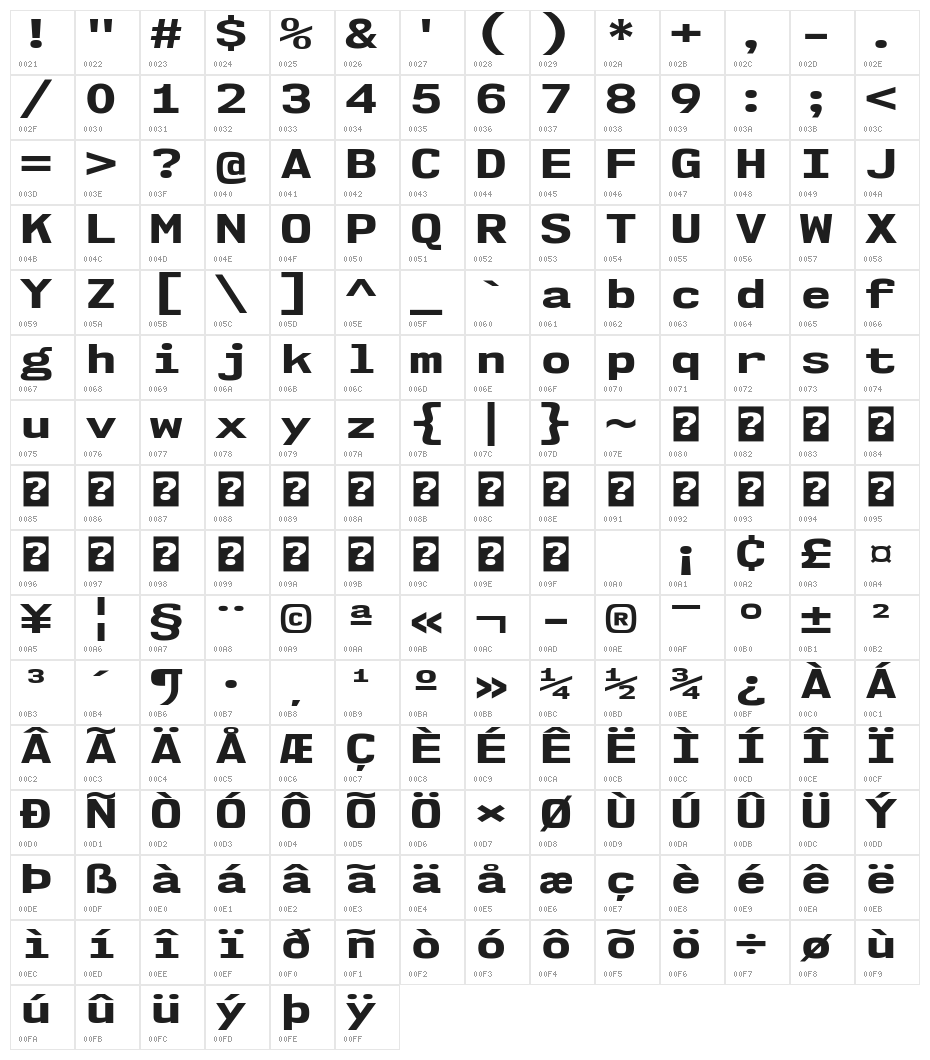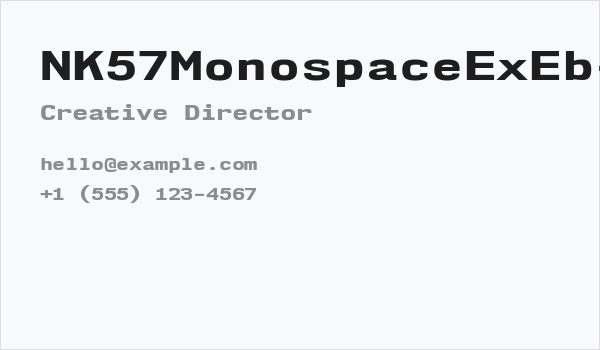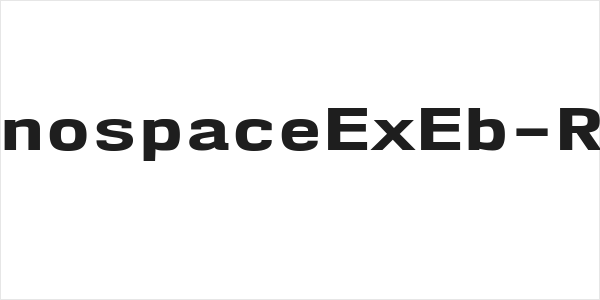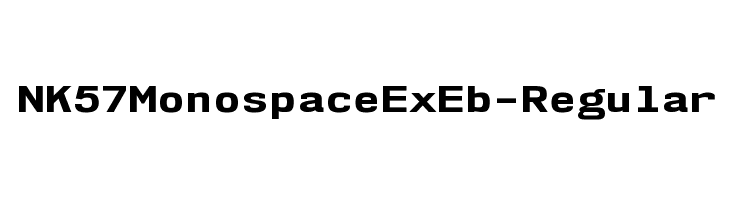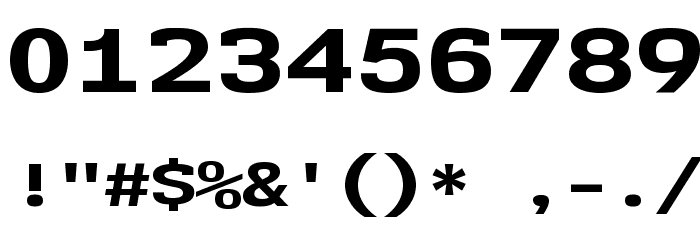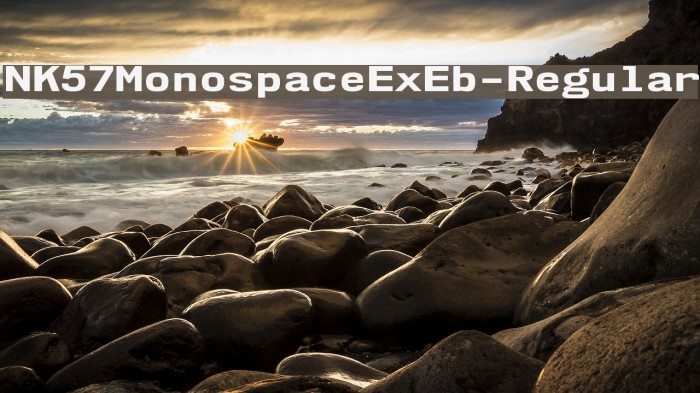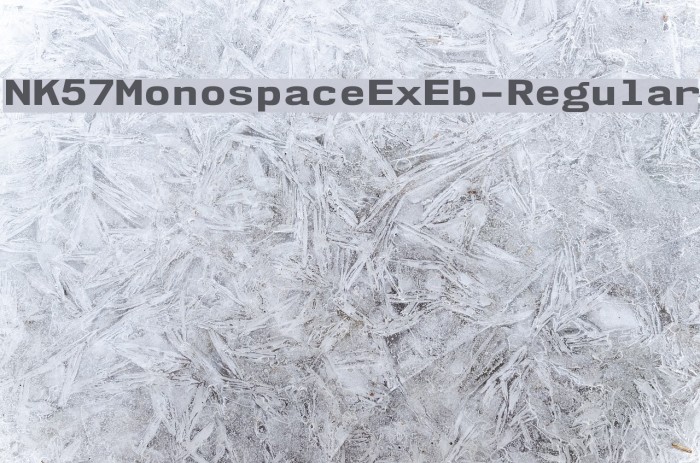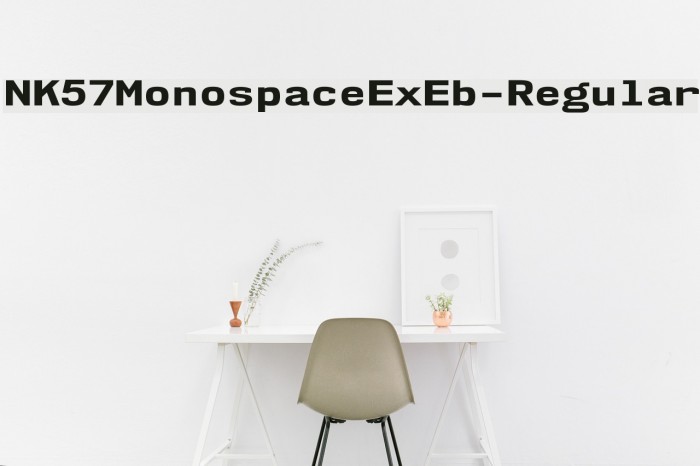
NK57MonospaceExEb-Regular Font
NK57MonospaceExEb-Regular Description
This typeface is a monospaced font characterized by its uniform spacing and consistent width across all characters. It features a bold and structured appearance, with clean lines and a modern aesthetic. The uppercase and lowercase letters maintain a geometric form, providing a sense of balance and stability. The numerals are clear and easily distinguishable, making it suitable for technical and coding applications. Special characters are well-defined, ensuring readability and functionality in various contexts.
| Use Case | Coding, Technical documentation, Data tables |
| Proposed Projects | Ideal for coding environments, technical documentation, and any project requiring precise alignment and readability. |